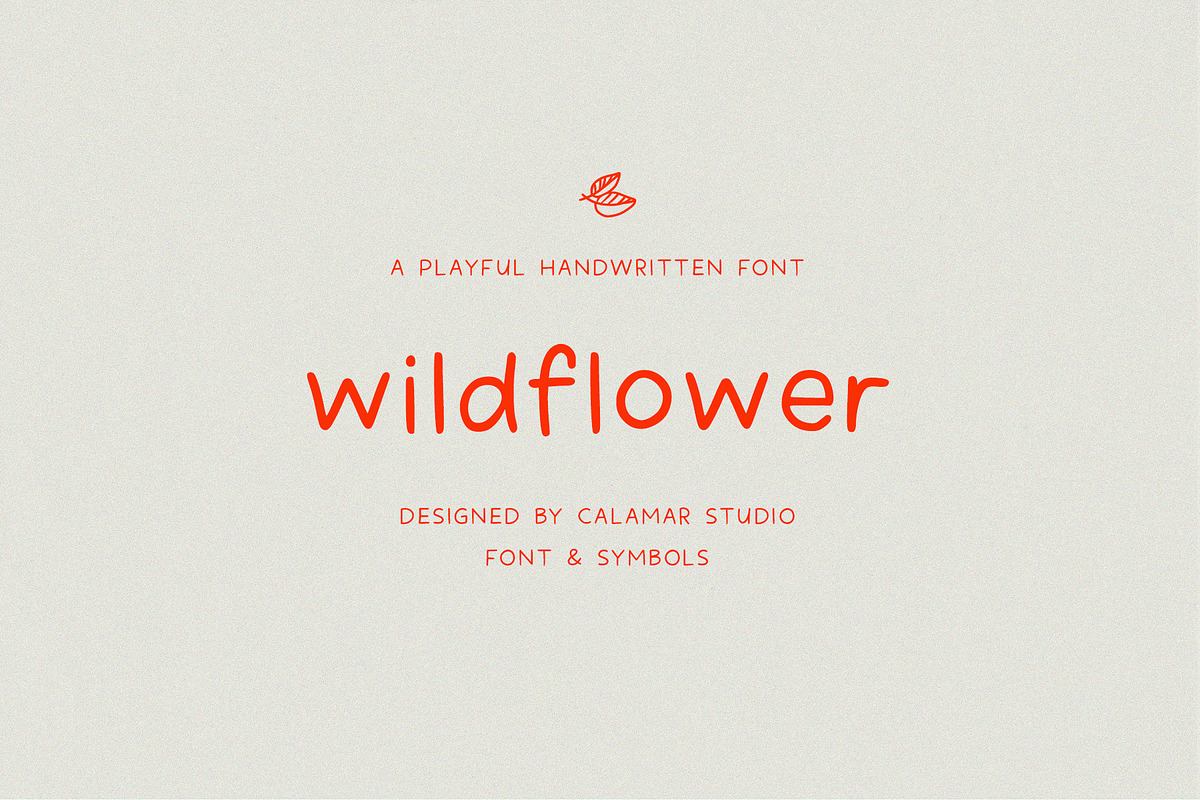
Wildflower | Handwritten Font Free Download
Wildflower | Handwritten Font Free Download is a charming and whimsical script typeface that adds a personal and artistic touch to your designs. With its flowing strokes and organic curves, this font is perfect for creating logos, invitations, greeting cards, branding, and social media content that need a warm, handwritten feel. The natural and elegant style of Wildflower | Handwritten Font Free Download makes it ideal for projects that require creativity and individuality. Whether you're designing for a boutique, a wedding, or crafting a custom brand, this font will bring a unique and friendly vibe to your work. Experiment with its beauty in personal projects before purchasing a commercial license and add a touch of personality and charm to your designs with this beautifully crafted handwritten font.